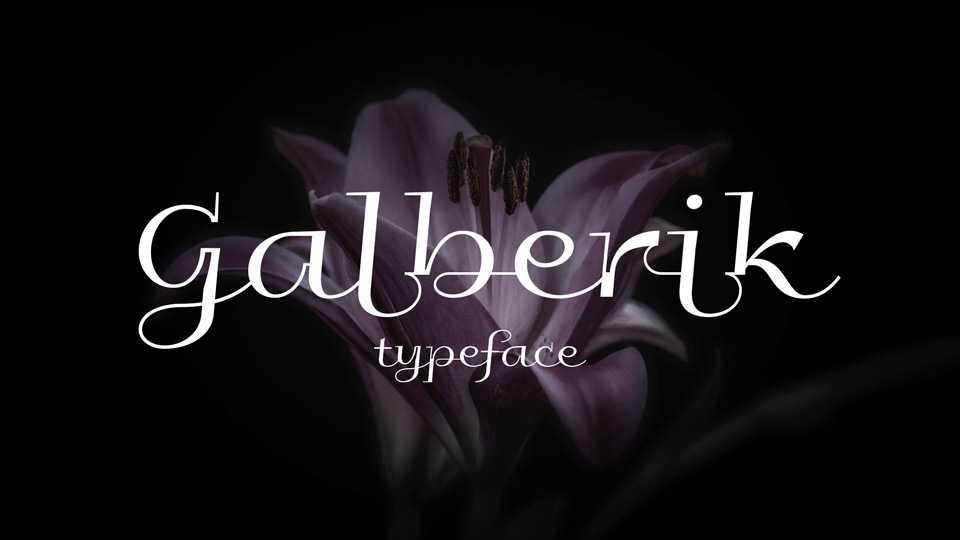
Download Galberik font, a fancy geo­met­ri­c script typeface. Galberik font looks great for wedding decoration, branding, fashion and other beautiful projects.